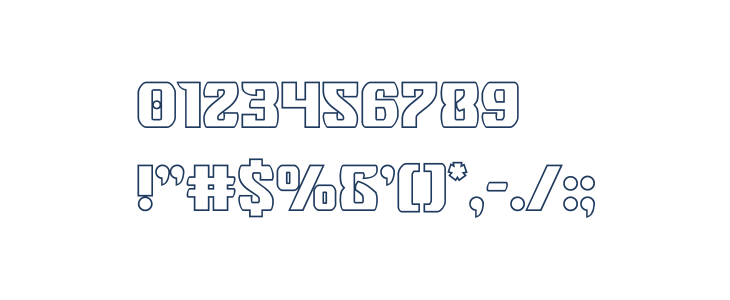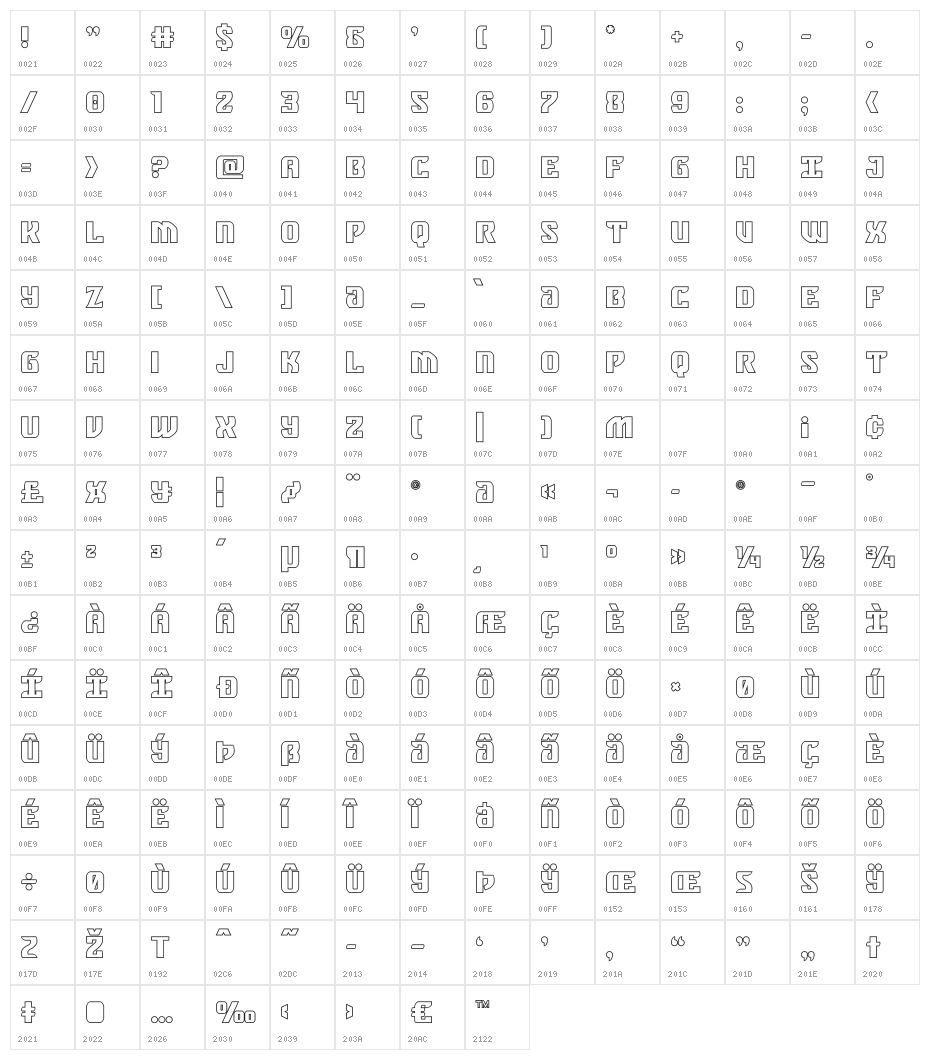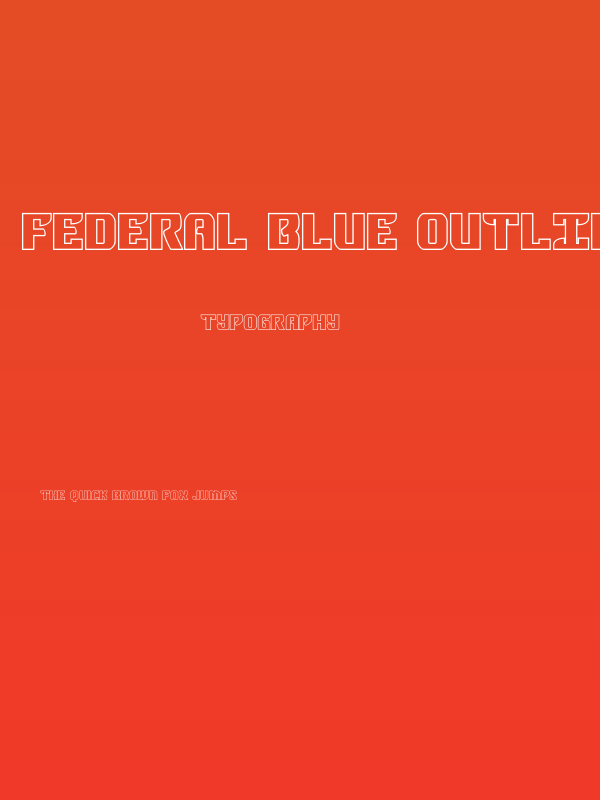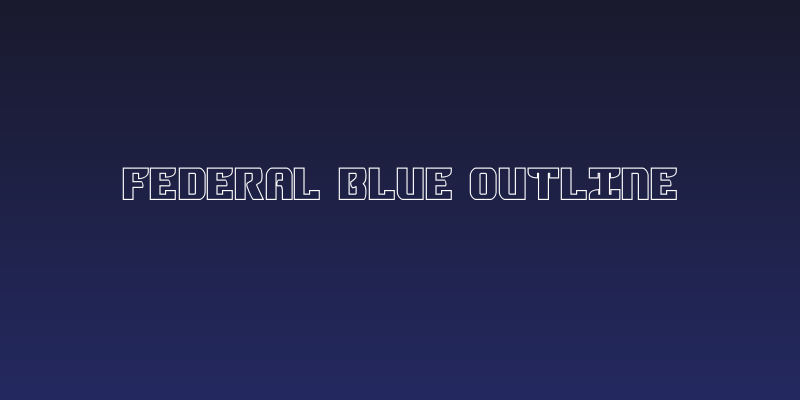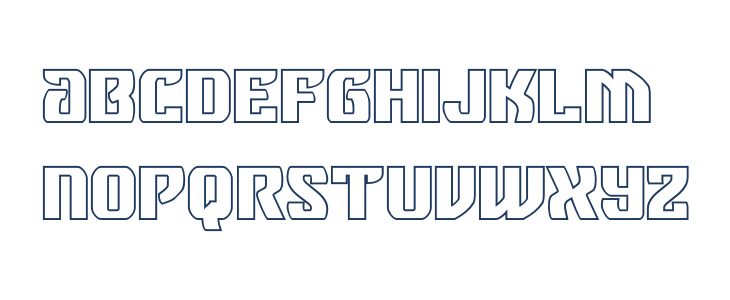
Federal Blue Outline Font
Federal Blue Outline Description
This font features a bold, geometric design with a distinct outline style. Each character is crafted with sharp angles and a uniform thickness, creating a modern and futuristic appearance. The uppercase and lowercase letters maintain a consistent height, while the numbers and special characters complement the overall aesthetic. The outline effect gives the font a three-dimensional look, making it stand out in any design. Its structured form and clear lines make it highly legible, even at smaller sizes. This font is ideal for projects that require a strong visual impact.
| Proposed Projects | Ideal for branding, posters, headlines, and digital media where a strong visual impact is needed. |